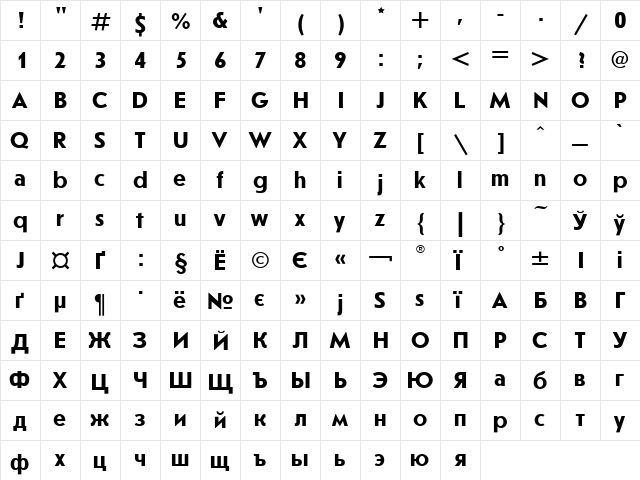
UkrainianJournalSans Bold
Design Context for UkrainianJournalSans Typeface
UkrainianJournalSans offers clean, dependable letterforms without strong stylistic allegiance, making it a practical choice for designers who need flexibility. Its bold stroke weight gives it real presence on the page.